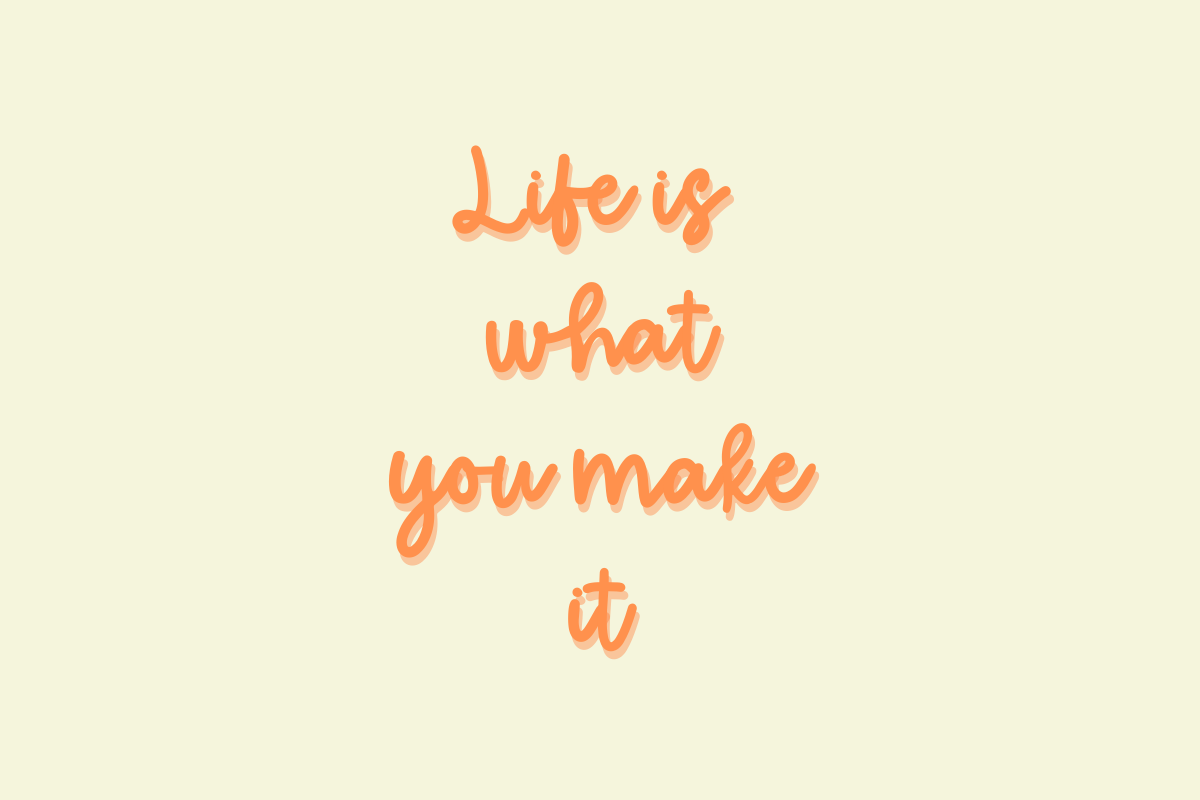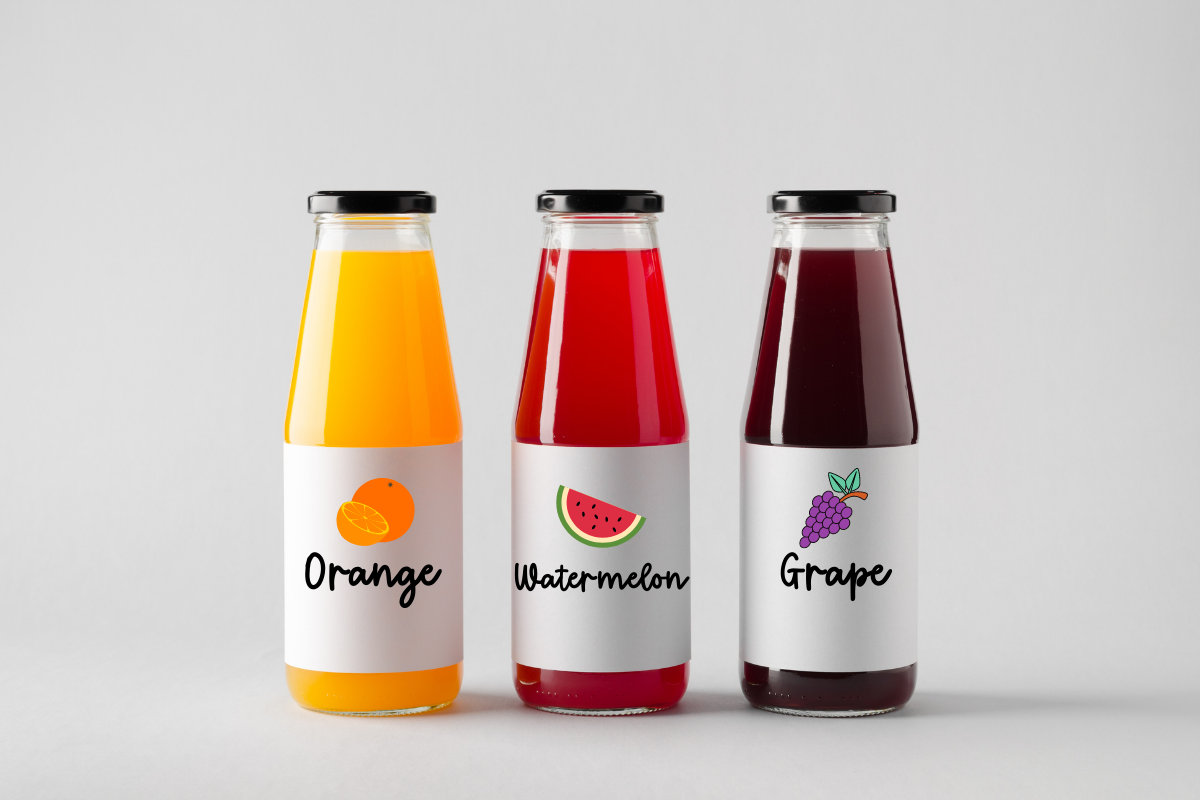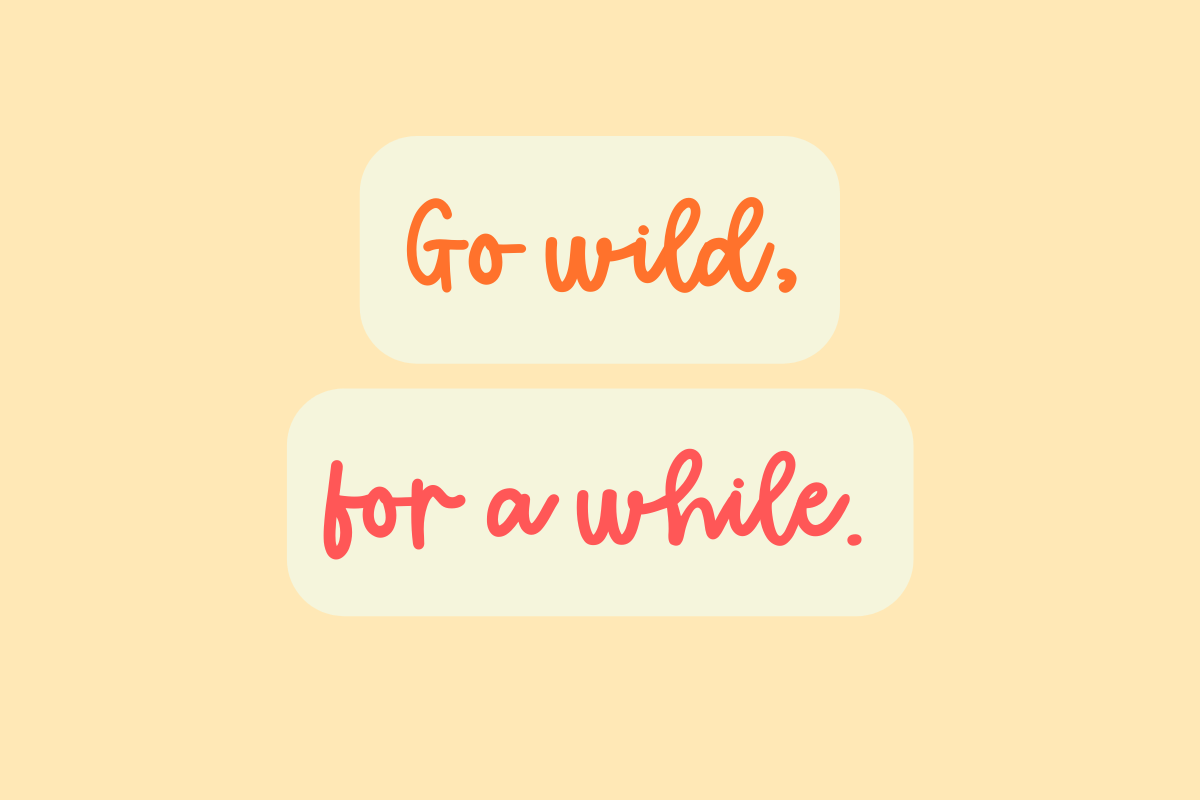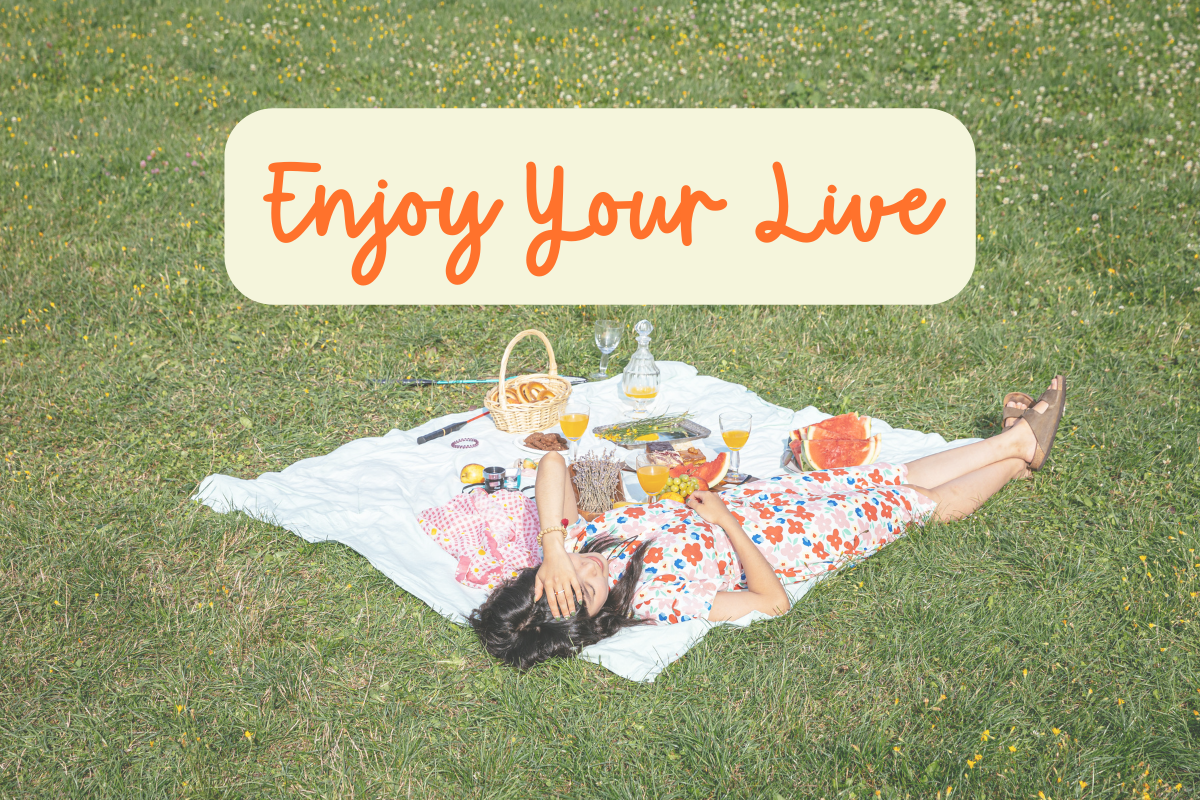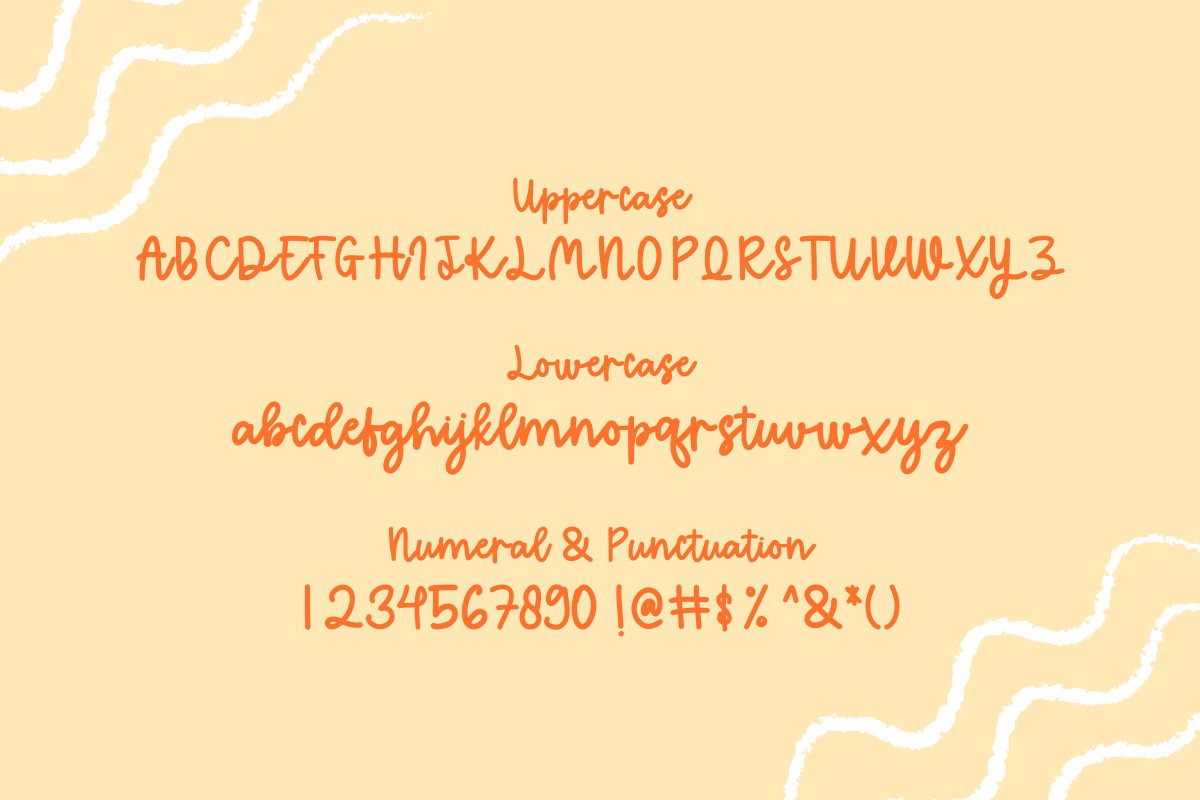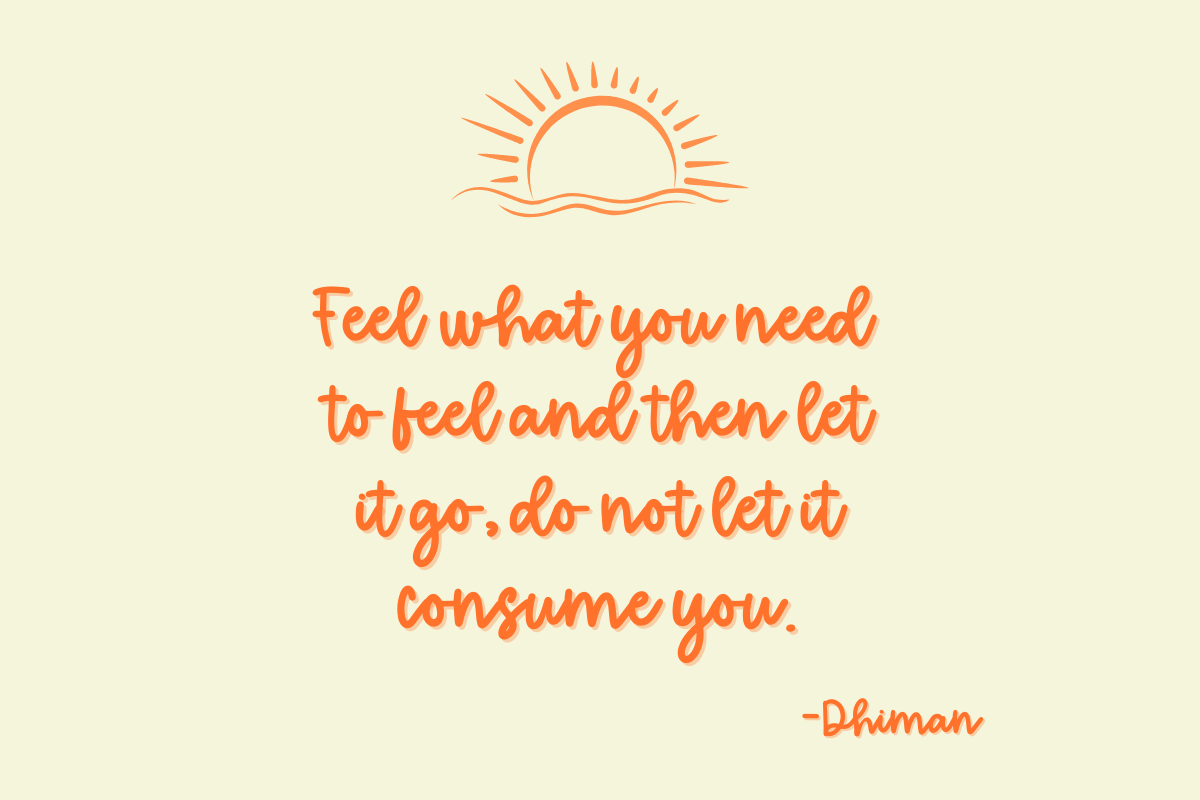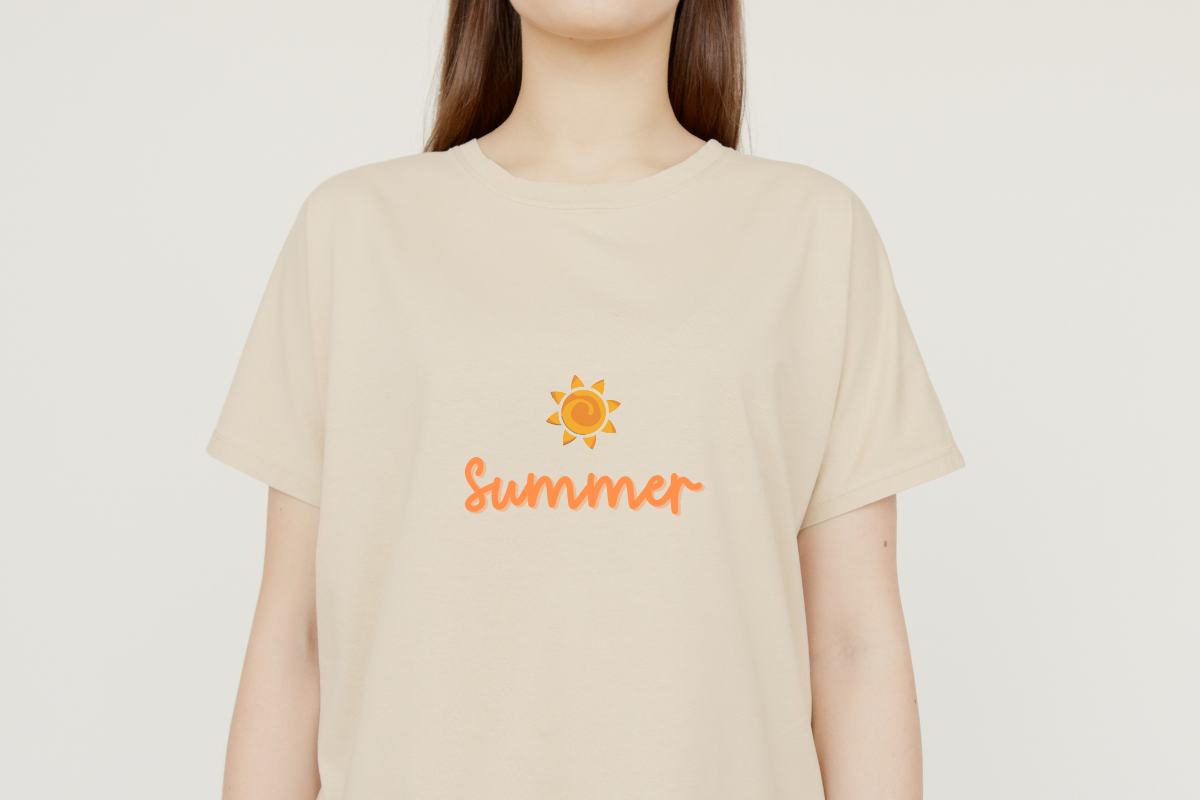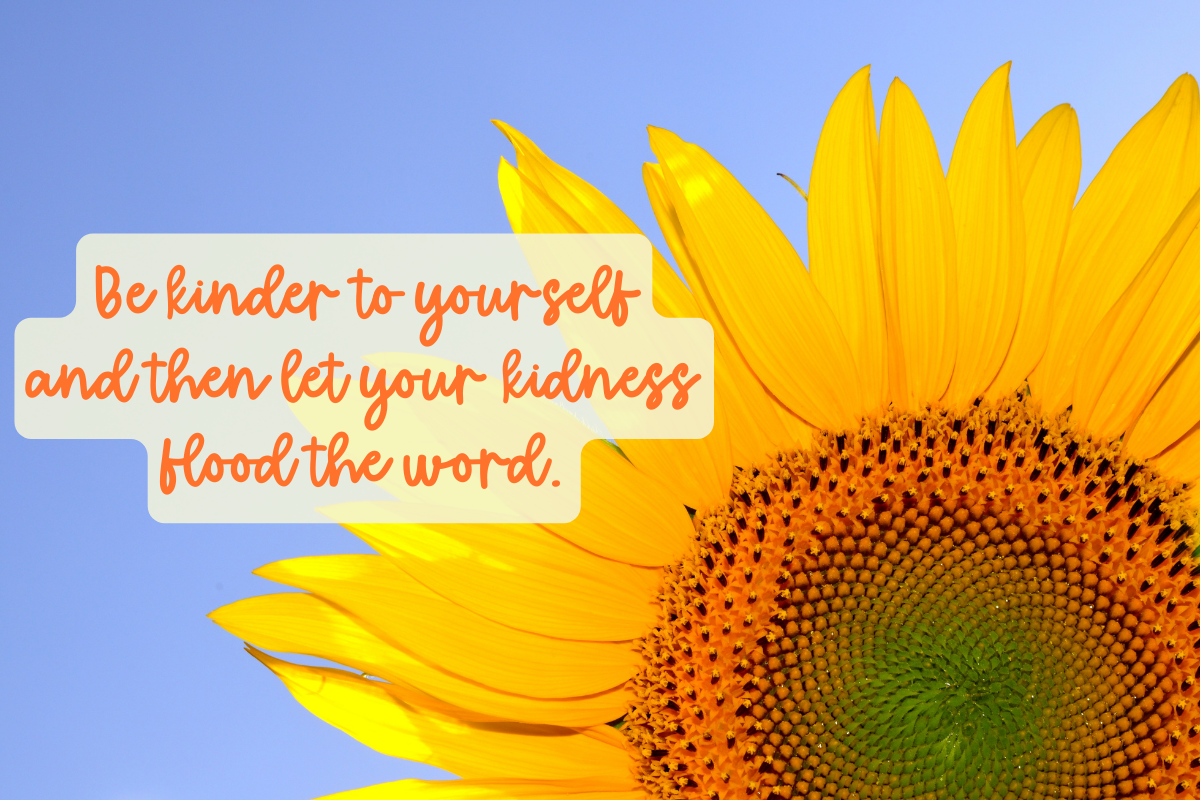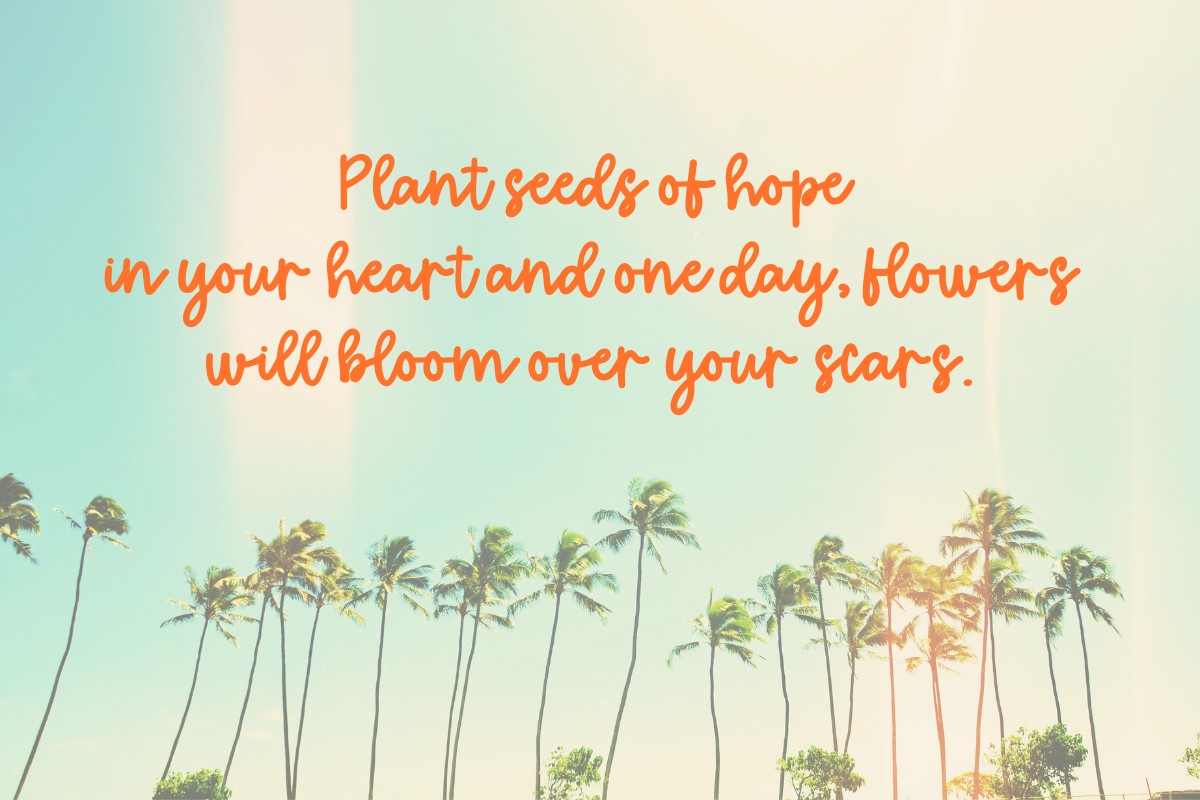
Summer Time
Hi... This is my new font, it's called Summer Time. This font is handwritten font. it's very suitable to be applied in your design, also it's perfect for logo, branding, title, social media post, advertisements, product packaging, product designs, label, photography, special event, web design, etc.
Summer Time (Uppercase, Lowercase)
Numeral & Punctuation Multilingual support